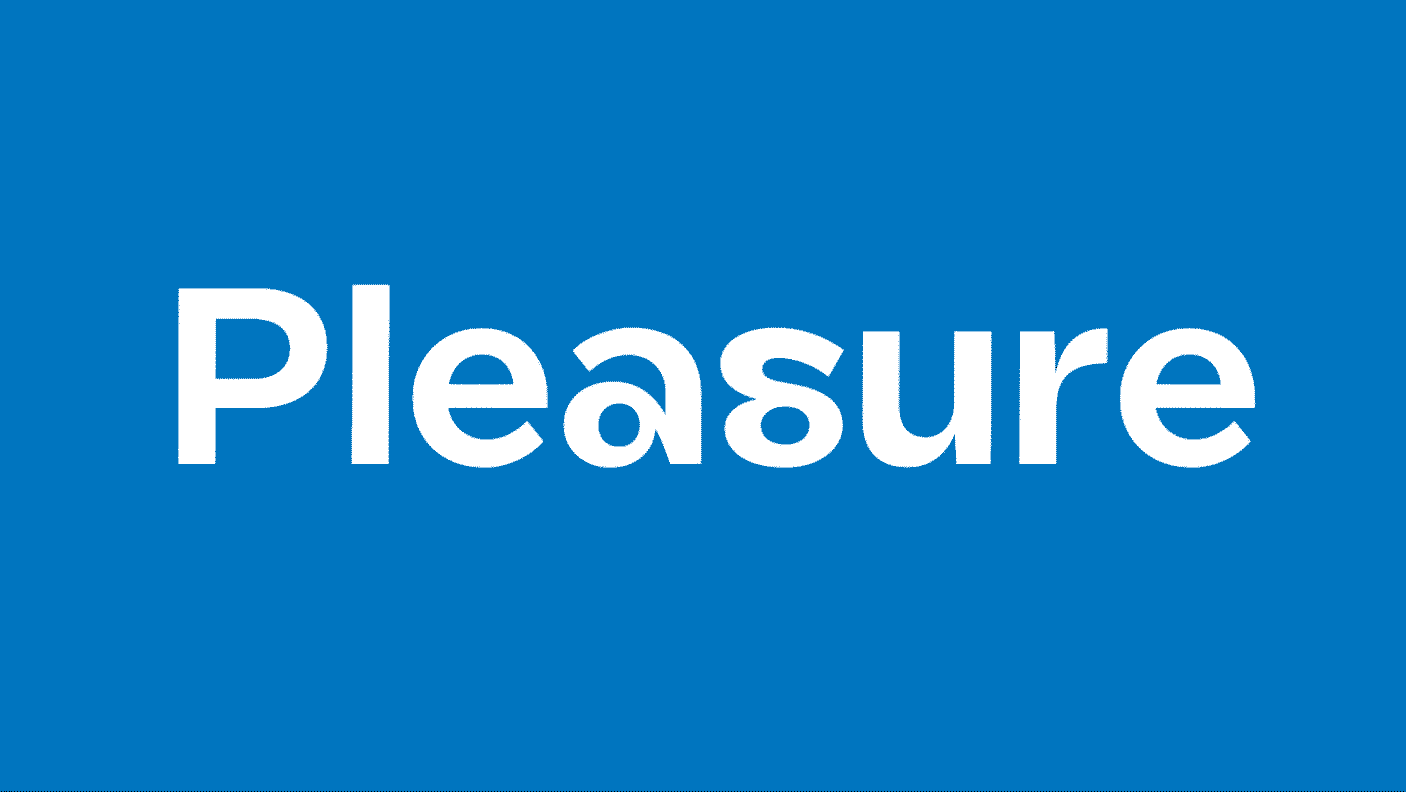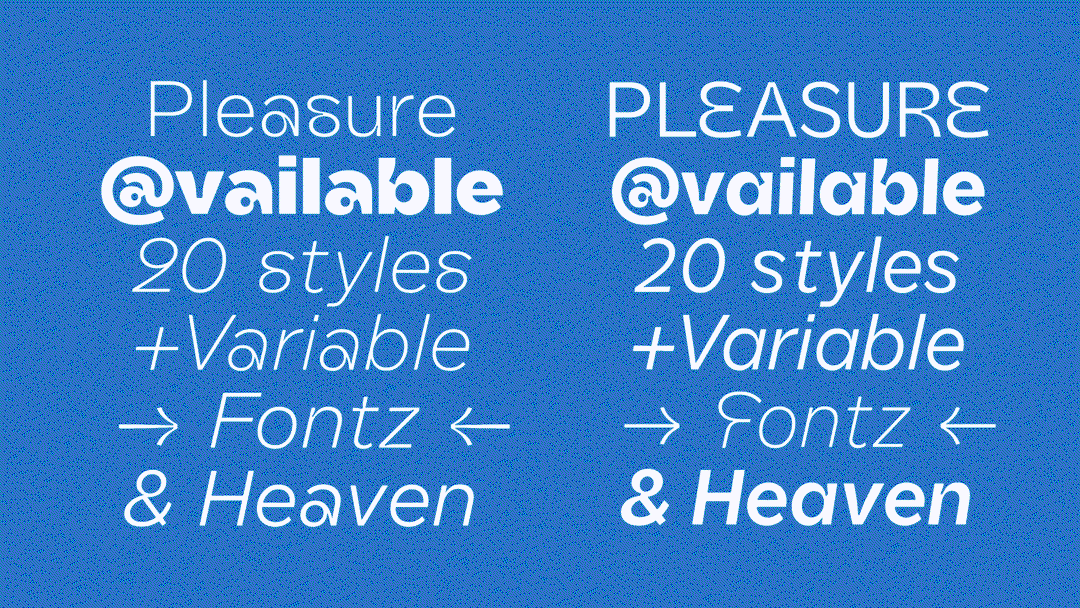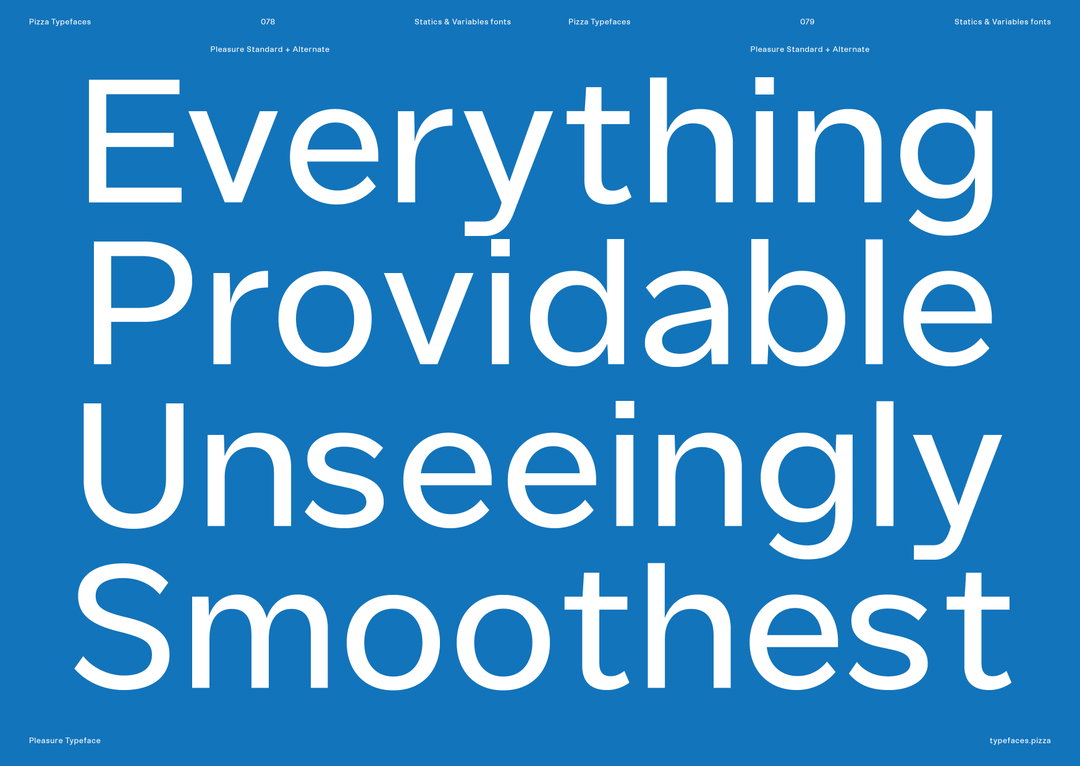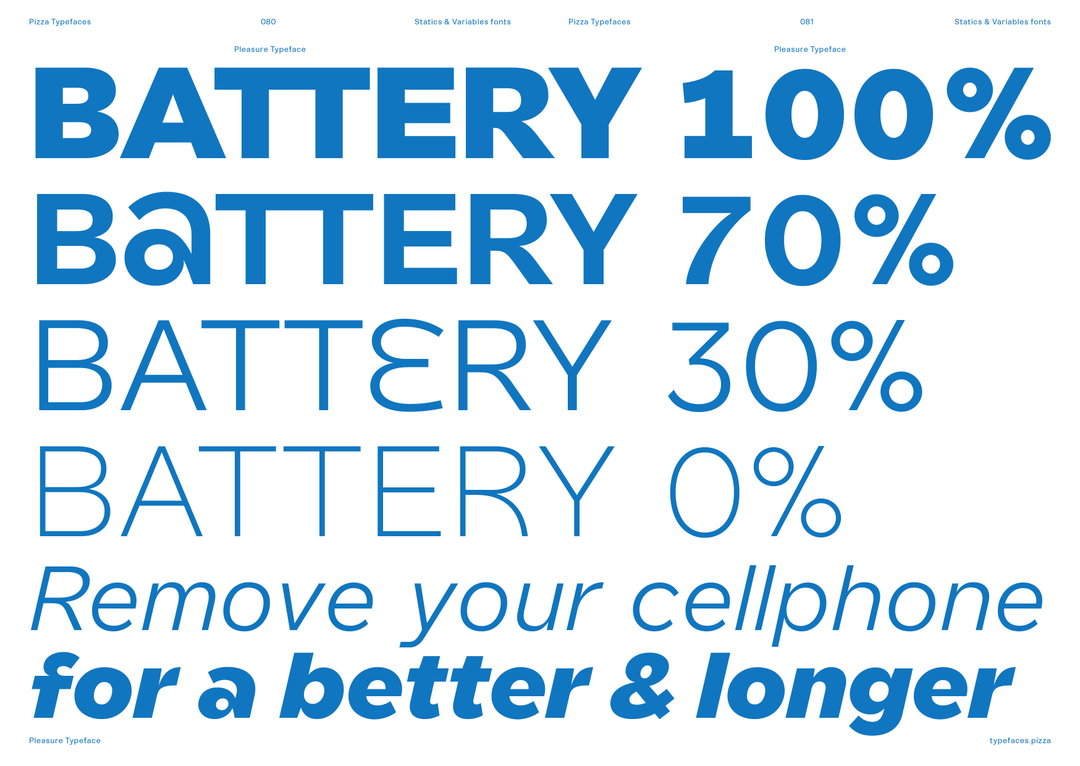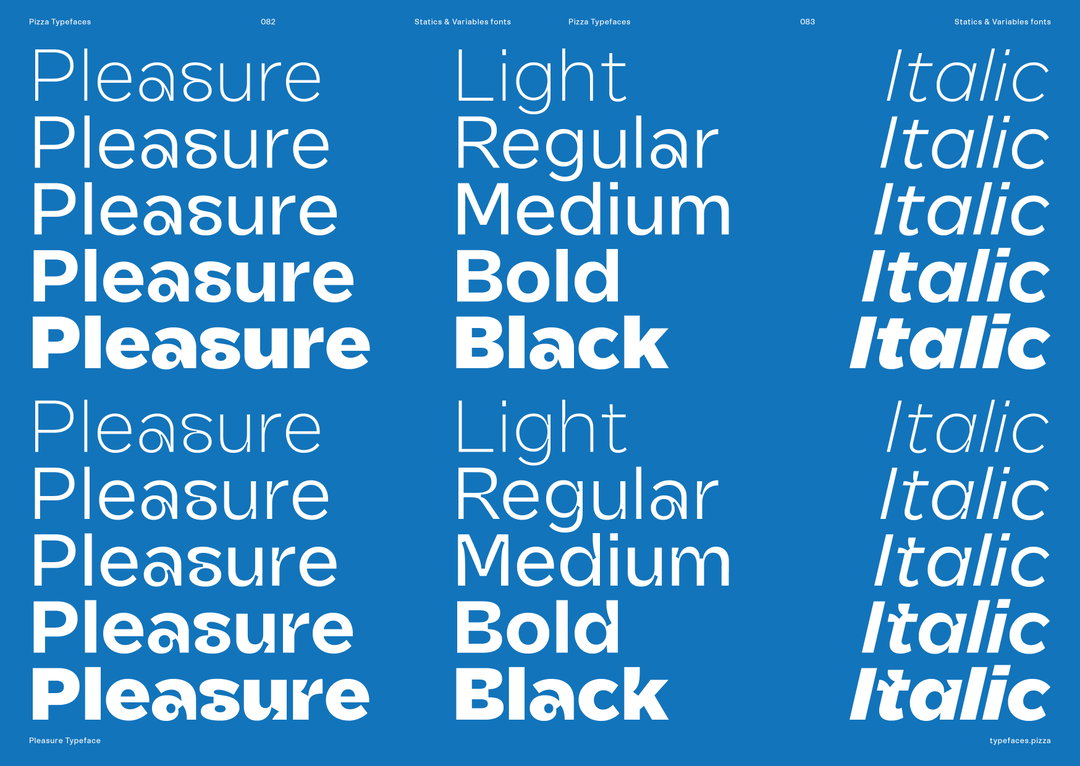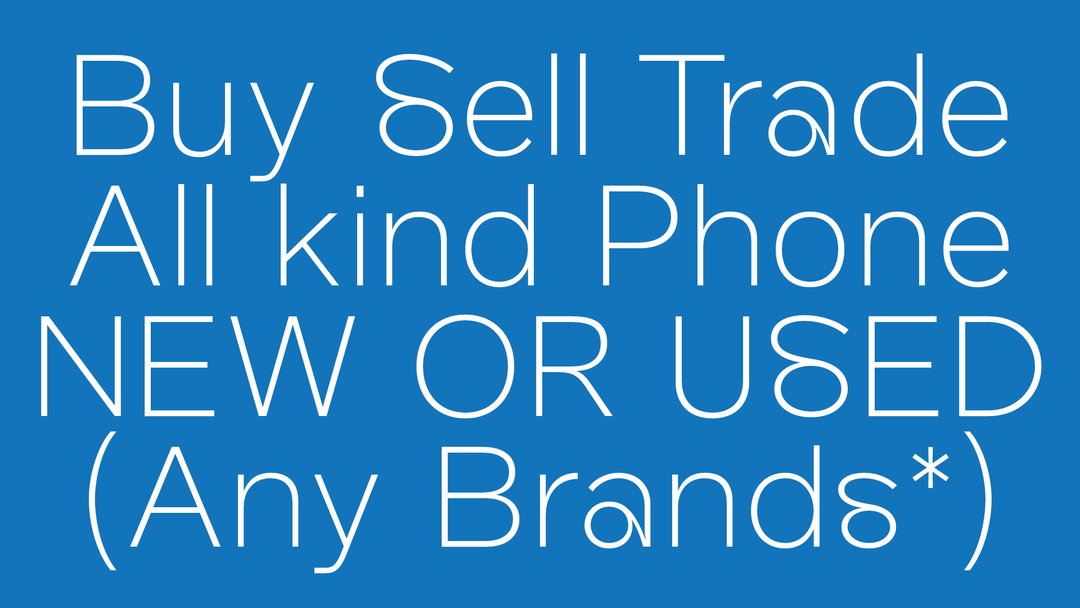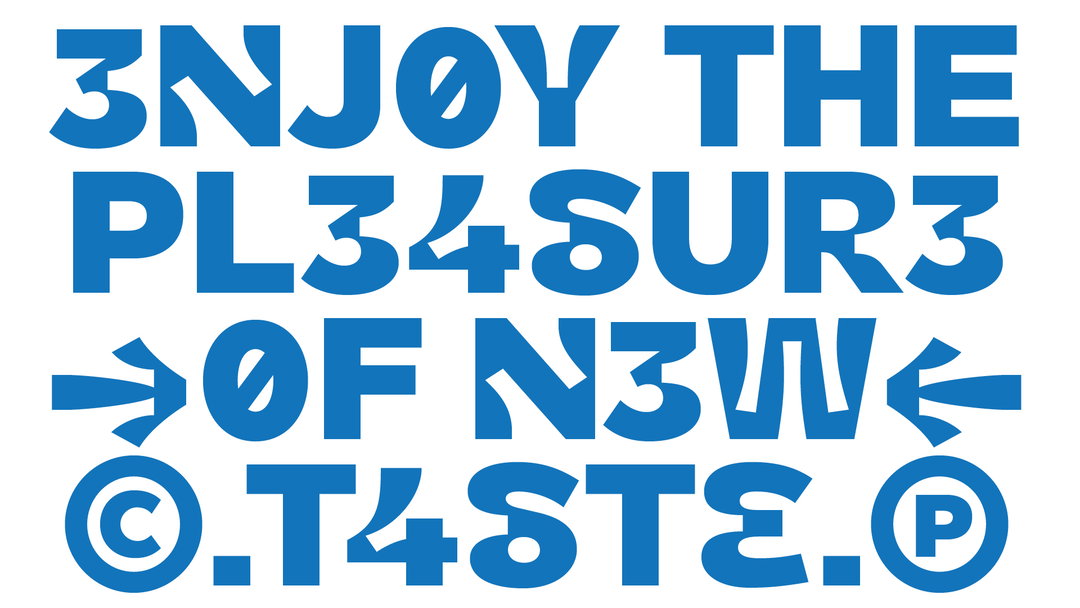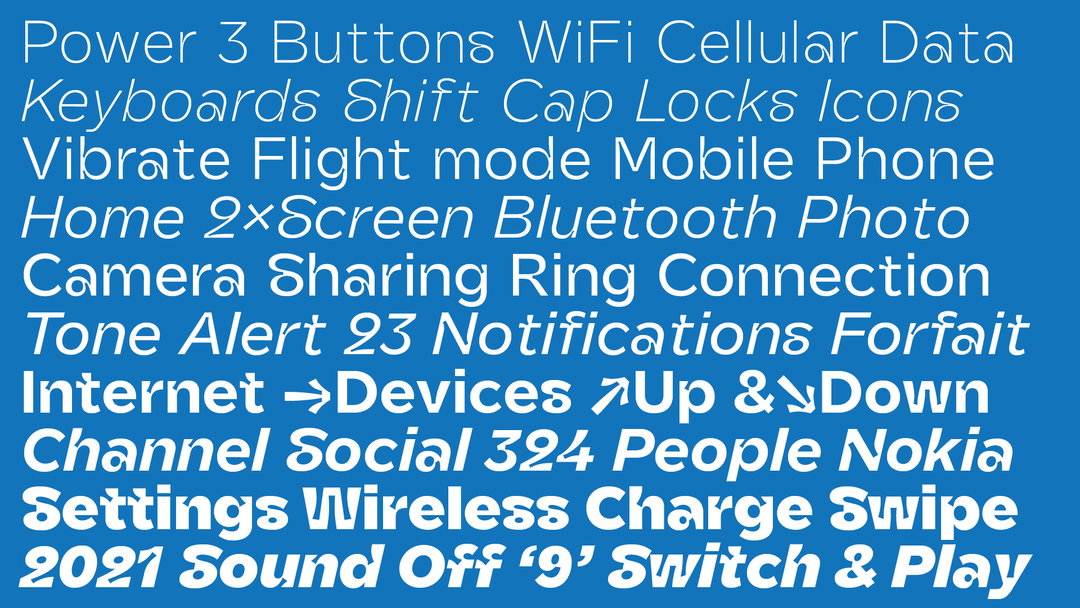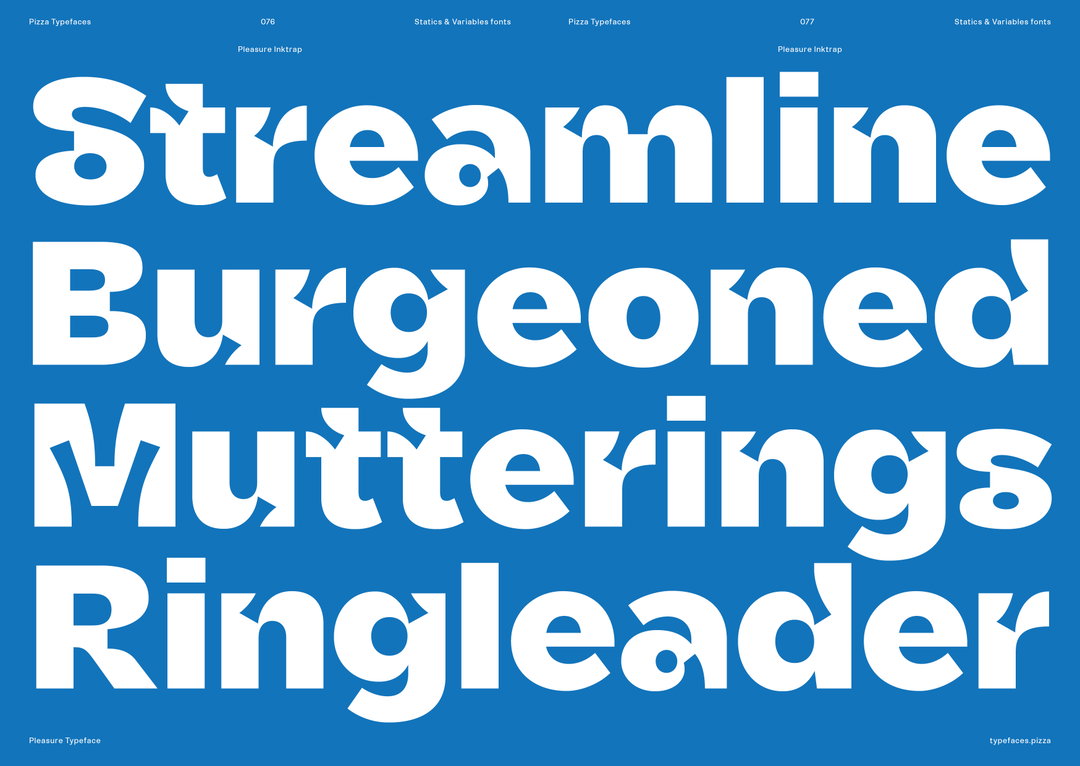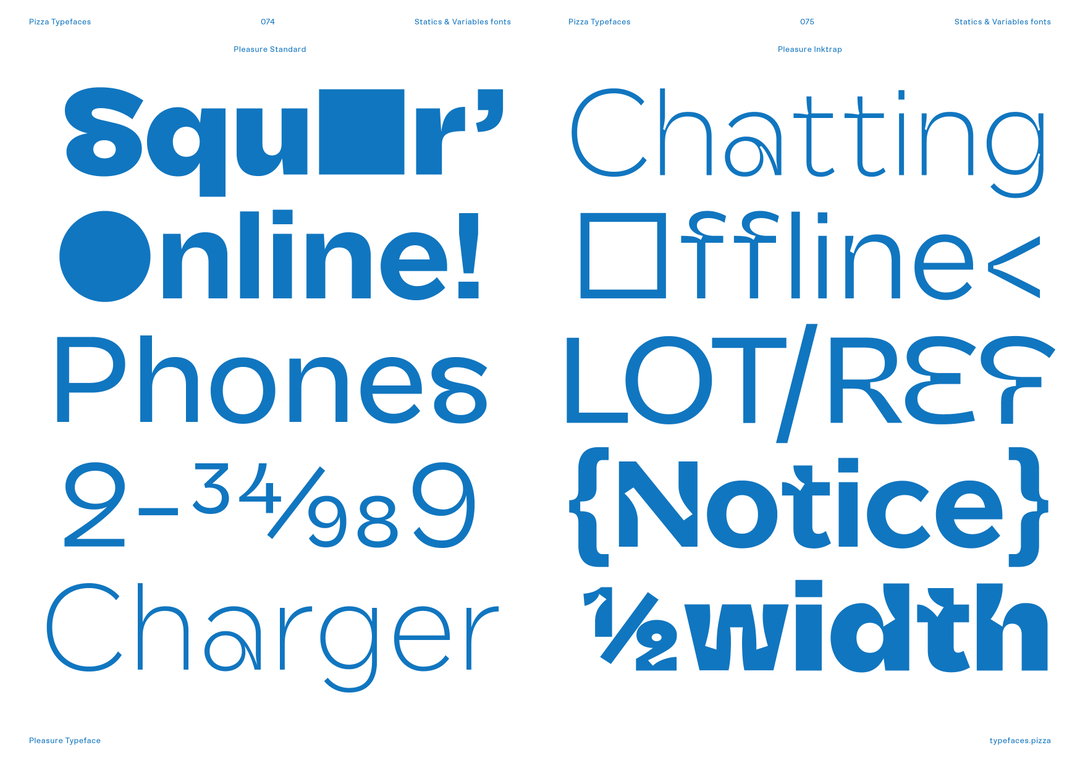
Pizza Typefaces’ latest release is an original taste called (and all about) Pleasure
Now available in 20 styles and two distinct families, the variable font boasts versatility and ambience.
Pizza Typefaces’ latest typeface is all about pleasure, and named after it too. Started in March 2020 by Mothi Limbu of FlirtStudio and developed by Borho Studio, Pleasure was then turned over to the type foundry, who honed its character through a few tweaks and developed the glyph set for all Latin languages. Now available in 20 styles and two distinct families, Standard and Inktrap, Pizza Typefaces’ co-founder Adrien Midzic tells us all about the running grotesque font which sets out to induce pleasure.
To begin, Pleasure’s “geometric shapes do not resist the urge to be led, for certain letters, to an extrapolation of the terminals by converting them into loops.” Adrien tells us, it’s “a characteristic that gives Pleasure an original taste and a certain irony in the rolling of the eyes.” A fresh and funny addition to the Pizza family of type, Pleasure is smart in its combination of soft but well balanced letterforms.
It all started with Mothi, a designer the type foundry had collaborated with previously on some skateboard graphics. He approached Adrien and fellow co-founder Luc Borho with initial sketches. What really stood out was the typeface’s signature looped letter forms, a unique element which injects a sense of fun and playfulness into the alphabet. Adrien and Luc saw it as an opportunity to push the concept of the typeface further, crafting a typeface which is as loopy conceptually as it is technically. Adrien adds on Pleasure’s beginnings: “With his graffiti background in his early years, Mothi put in a lost feeling of playing with the letters.” This is an attitude extended throughout the entire family of fonts, from the ink trap versions to the Grotesk styles.
Adrien describes this design process as “slow and full of questions”. The curves took up a lot of time, understandably, pulling together all three designers’ heads to make crucial decisions when it came to the details, the stylistics and the letterform’s quirks. One of these decisions involved the addition of kissing glyphs in all weights and italics for the Standard family. Elsewhere, the bulk of the challenges lay in making the font variable. Luckily, the three designers worked together in a non-hierarchal setting where decisions were made through lengthy “discussions, talks and good vibes.”
The result is a versatile and wide ranging Grotesk which traverses from its Inktrap to Standard versions depending on the need. As Adrien puts it, “Pleasure Standard is a shy design partner while Pleasure Inktrap might be your most extravagant friend.” Adapting to its surroundings, the ambient typeface is equally delicious as the rest of Pizza Typefaces’ releases, something it prides itself on. After all, Pizza Typefaces is named after the globally beloved food for a reason. Fans of a basic but classic margarita as much as an exotic one, the type foundry is founded on this tasty concept. That typefaces can be simple or excessive in their toppings, but they all need a good base.